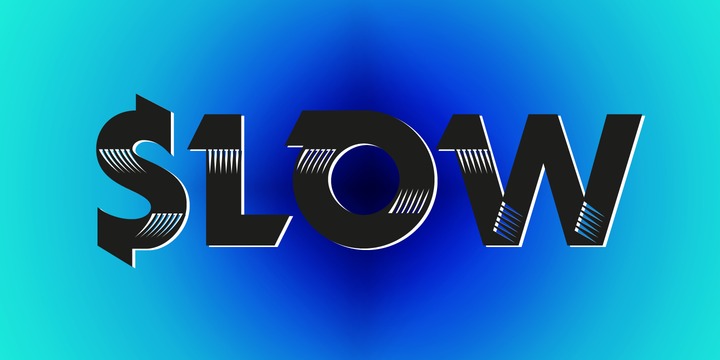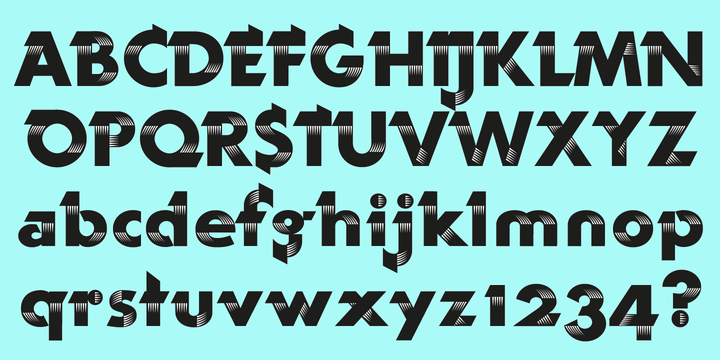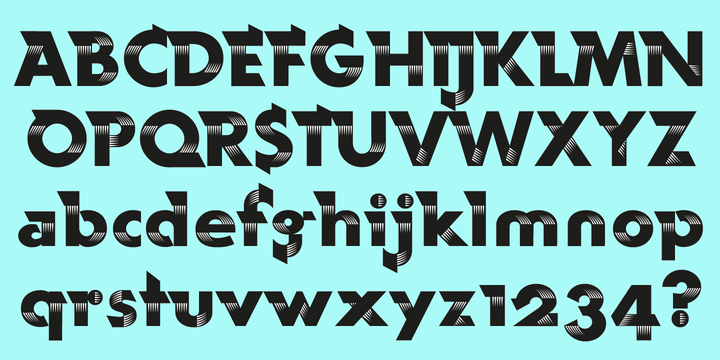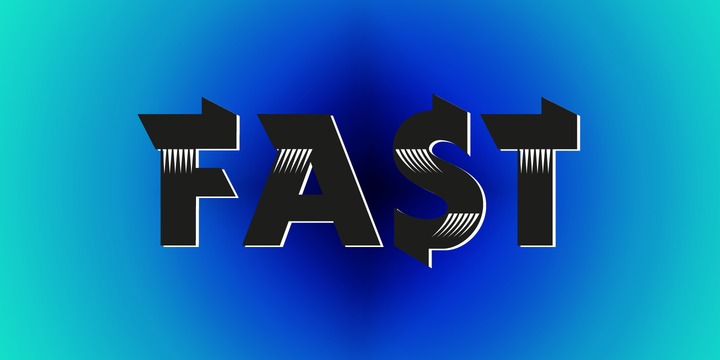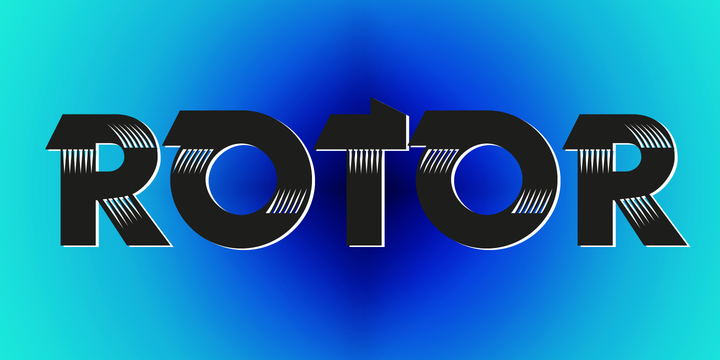
Rotor Font Family
The early Vulcan design inspired me to do this new, faster typeface in two different “speeds”, meaning I gave the design two opposing slants on the slab-serifs. In order to make it more useful I drew two sets of each “speed”, one with the white speedtraces and one without